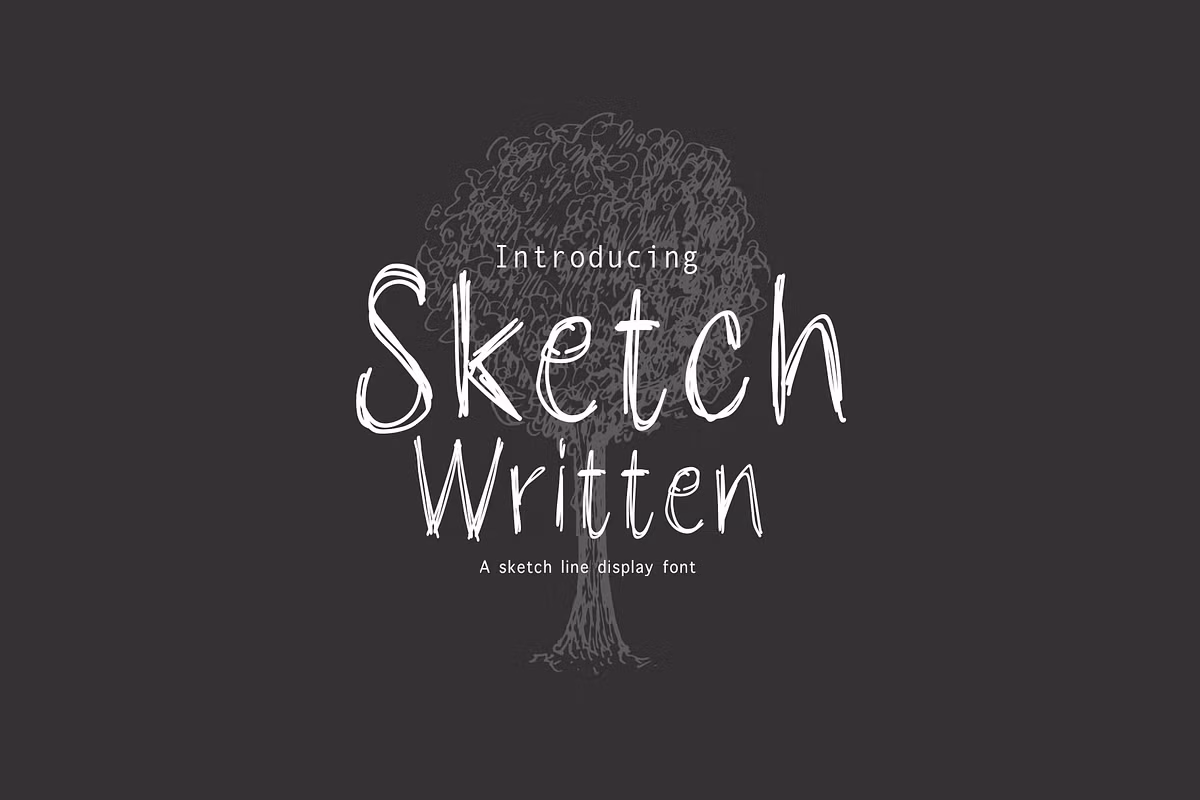
Sketch Written Display Font Free Download
Sketch Written Display Font Free Download is a dynamic and artistic typeface that captures the raw, hand-drawn essence of sketching. With its rough edges, textured strokes, and informal style, this font is perfect for creative projects that require a unique, personal touch, such as posters, branding, book covers, product labels, and social media graphics.
Sketch Written Display Font Free Download brings a playful, authentic feel to your typography, ideal for designs that want to feel artistic, spontaneous, and organic. Its display style ensures it stands out, making it perfect for headlines, logos, and any project that needs a bold and creative statement.